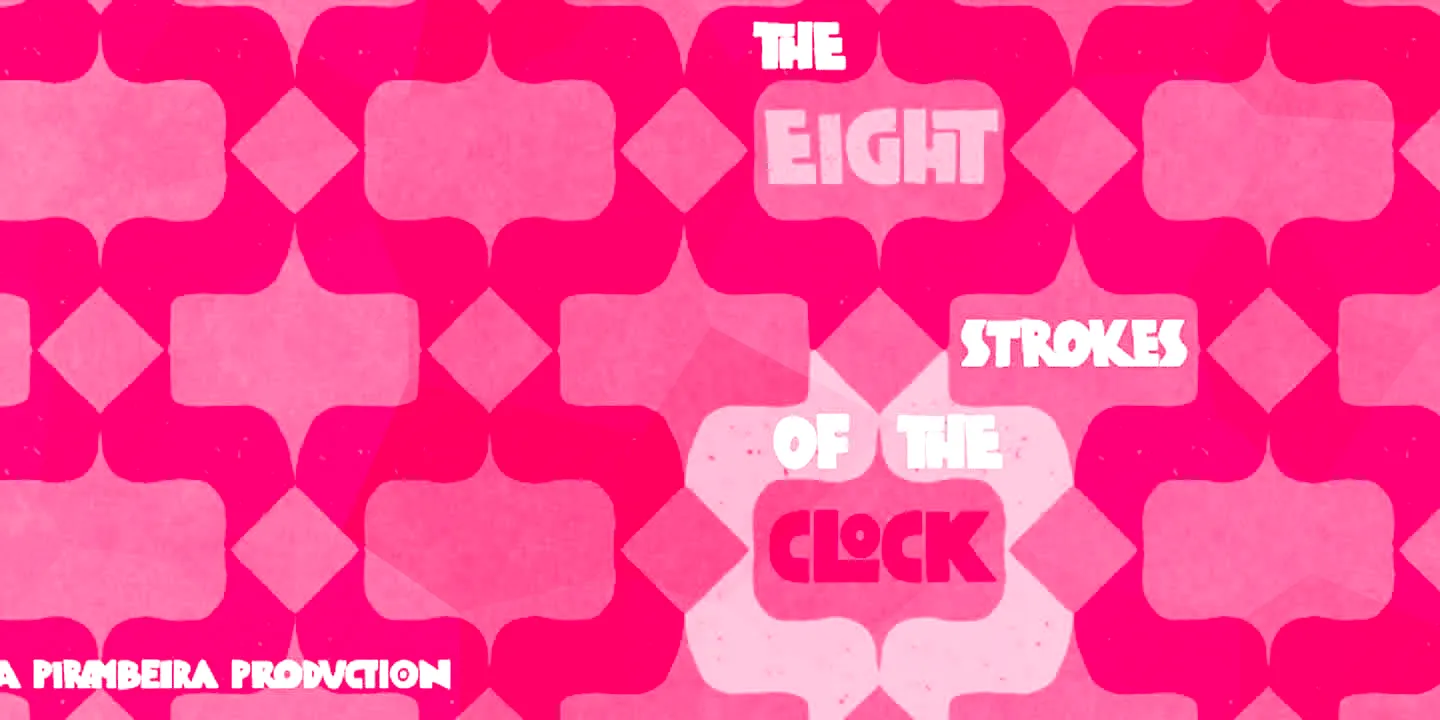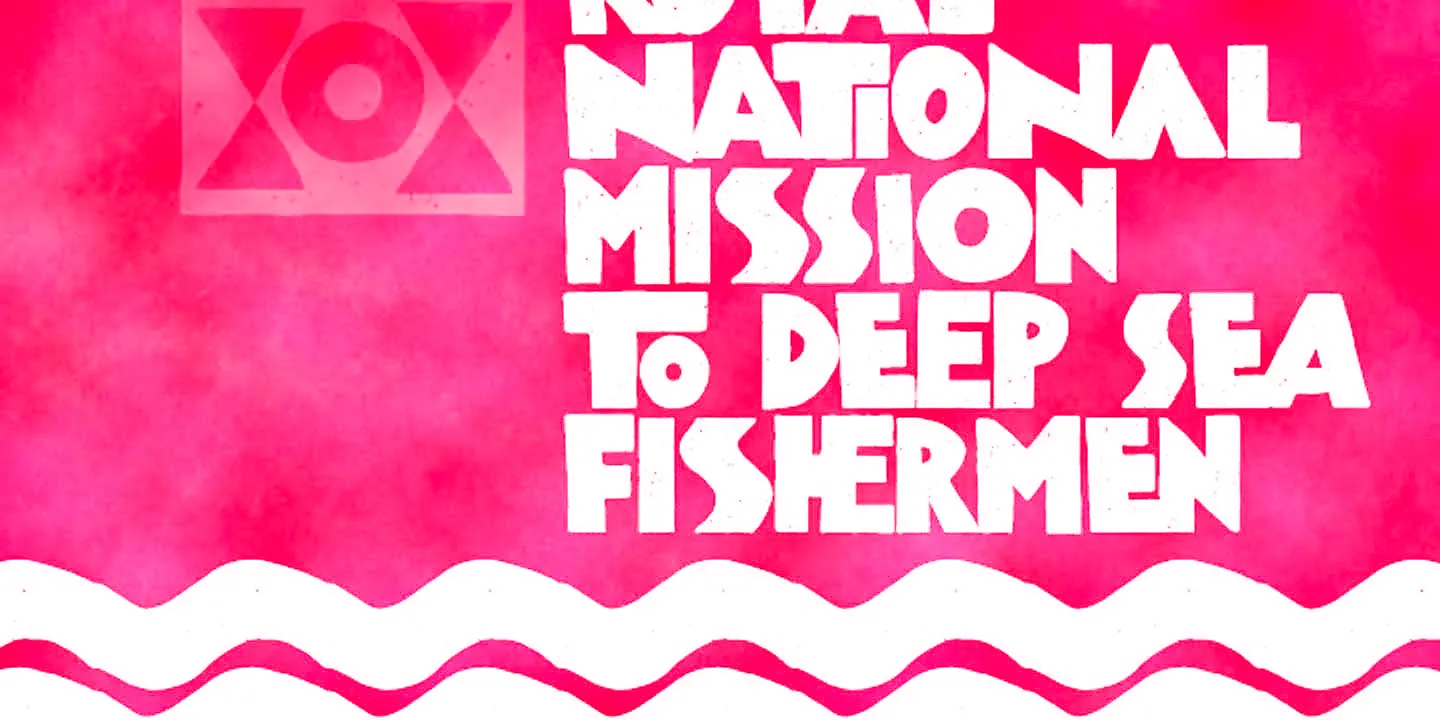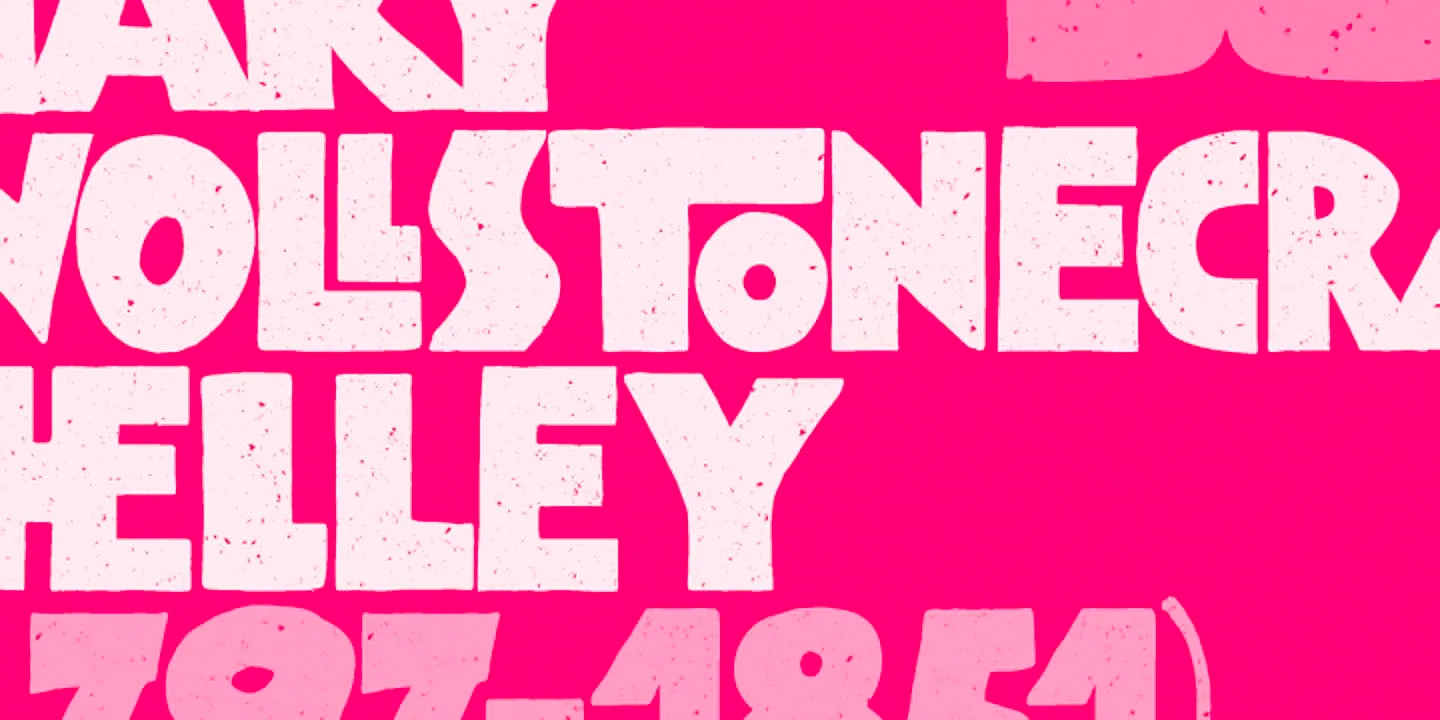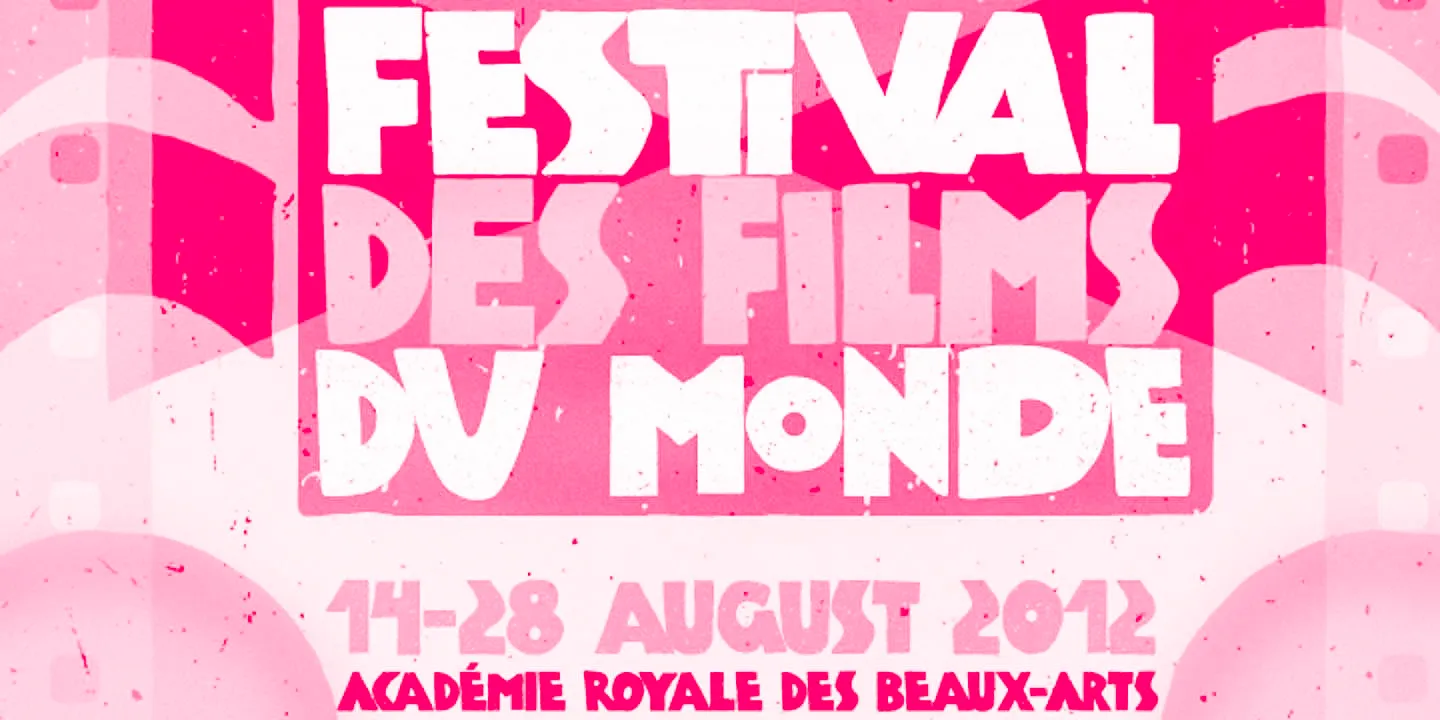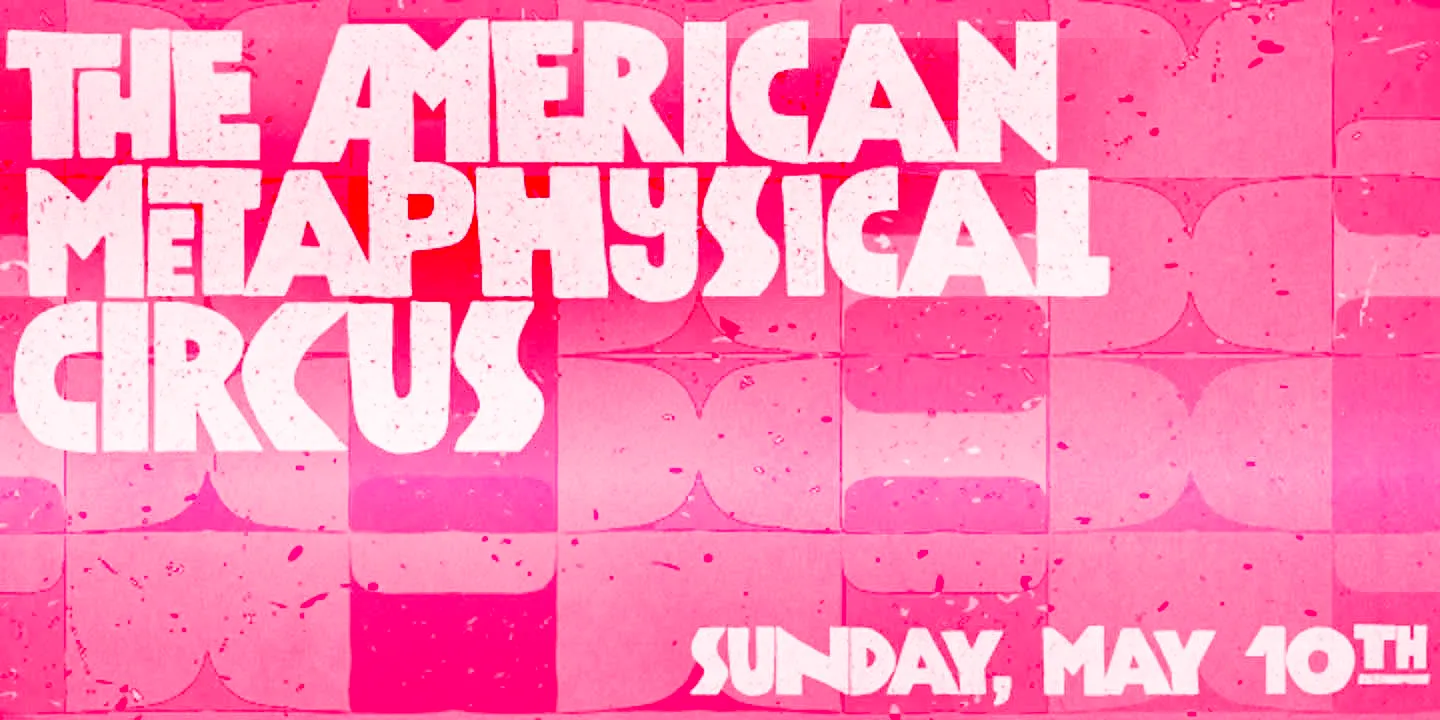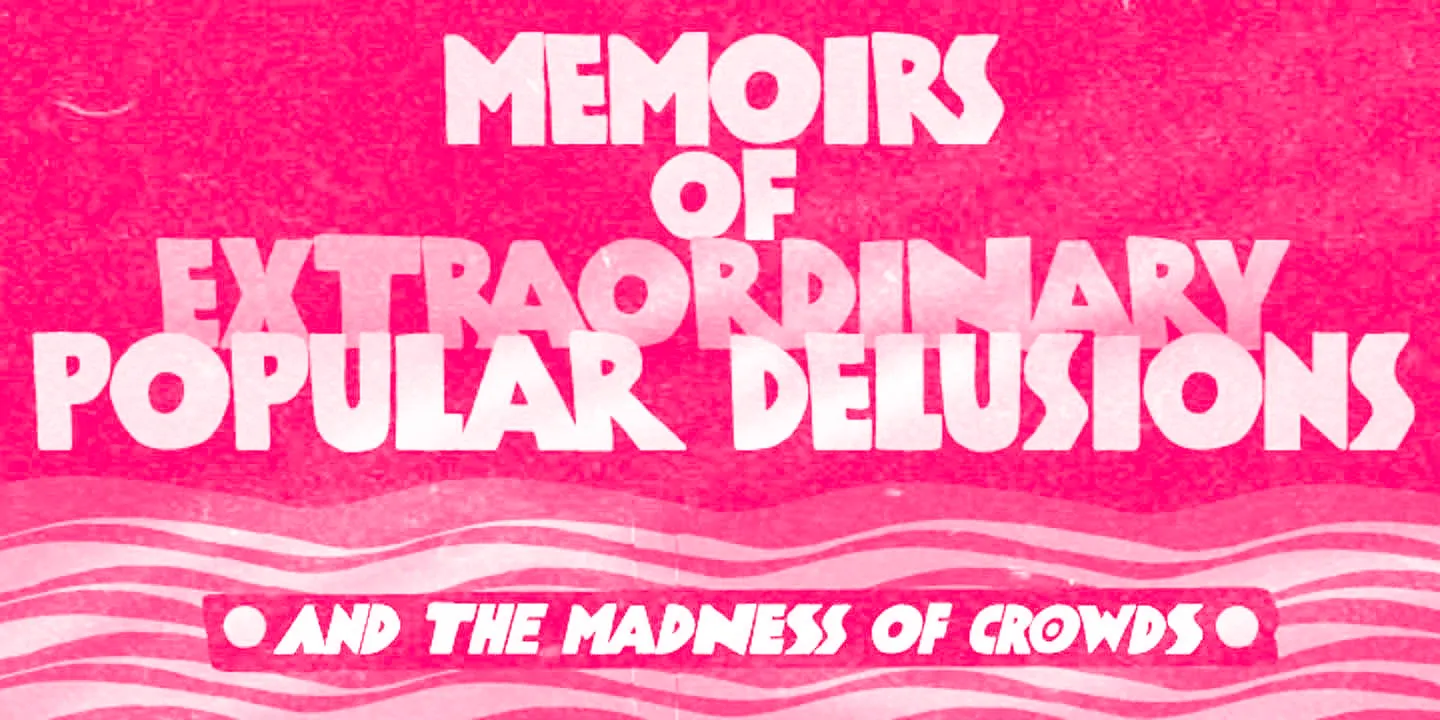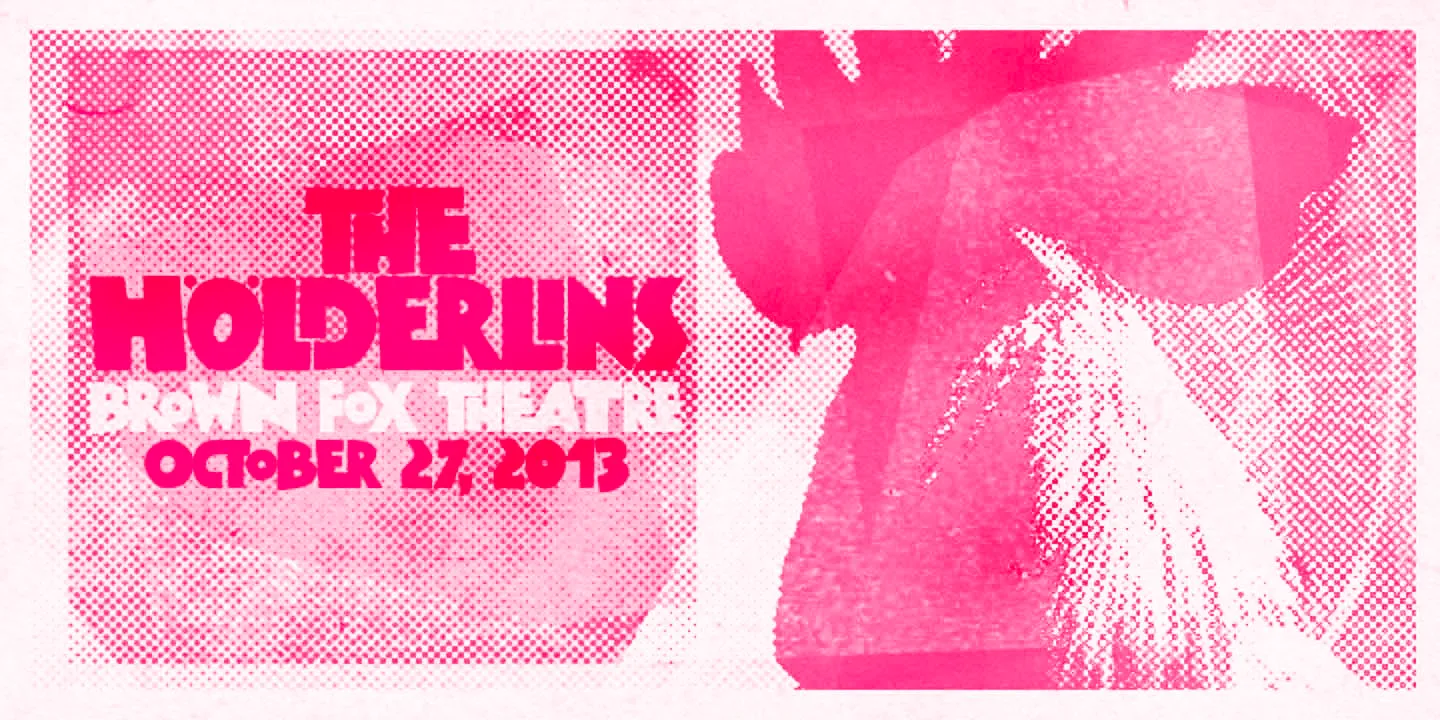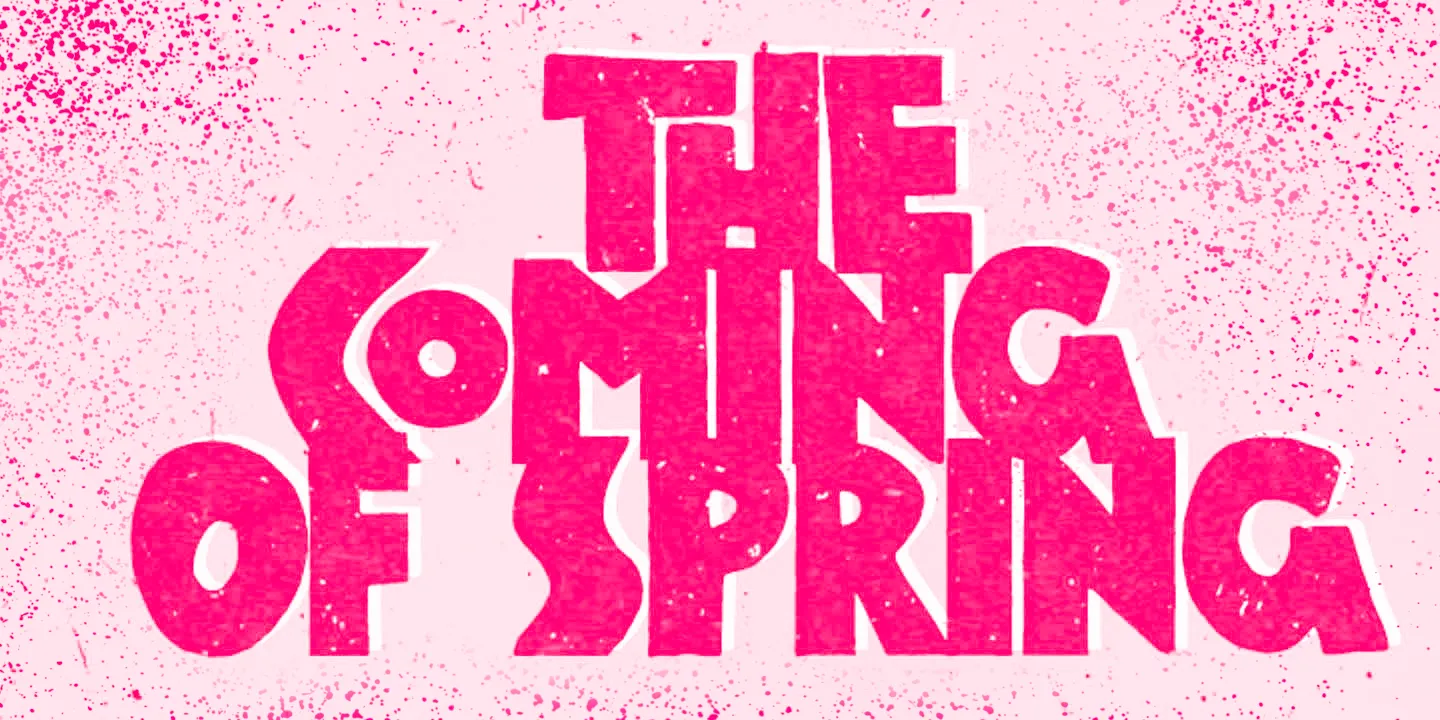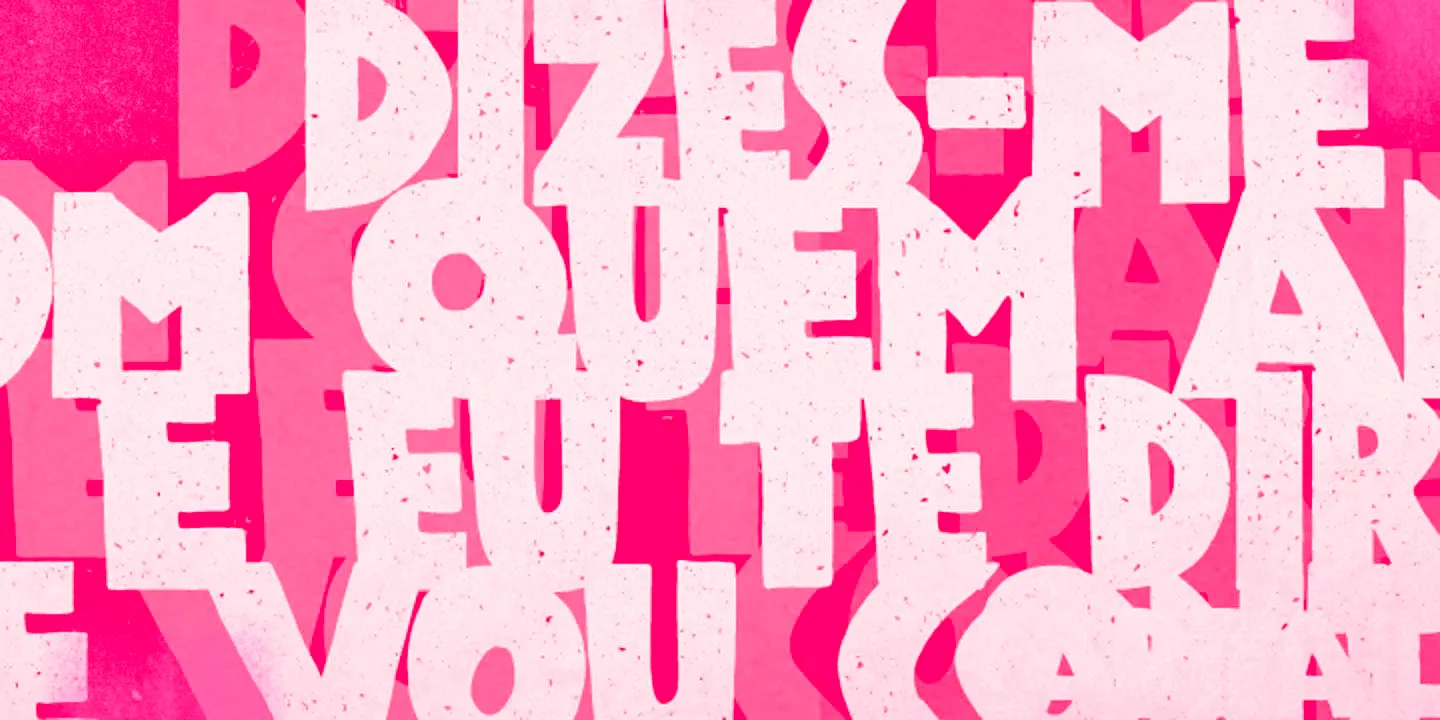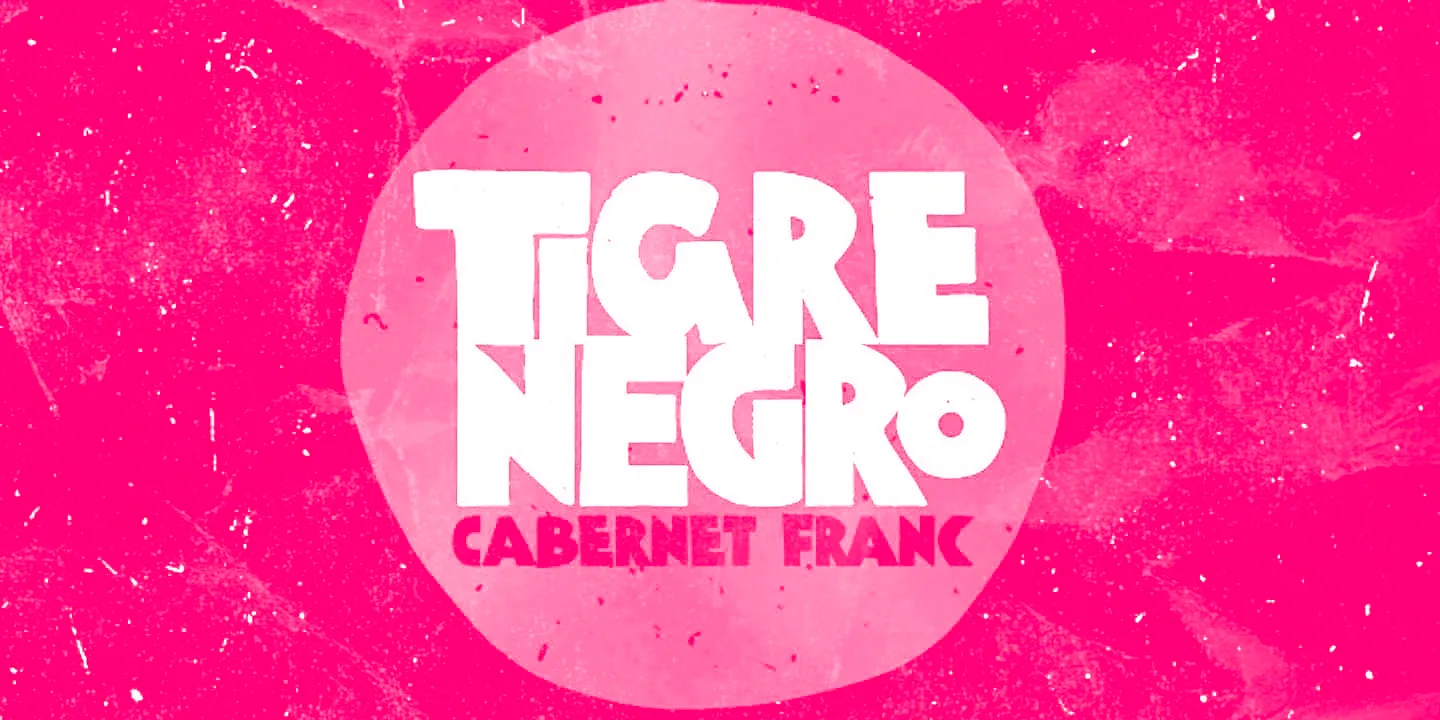
Kokoschka Fonts
Kokoschka
Kokoschka is a dense and strong display font inspired by the lettering on the poster of a short Expressionist play by Austrian painter, printmaker, and writer Oskar Kokoschka from 1909. Suppose the typeface itself is already profoundly vigorous. Use the ligatures and alternates for a more realistic, hand-lettered feel. The family includes a nice textured version, an oblique, and a very handy assortment of extras — ideal for book covers, film titles, concert posters, and food packaging, too!